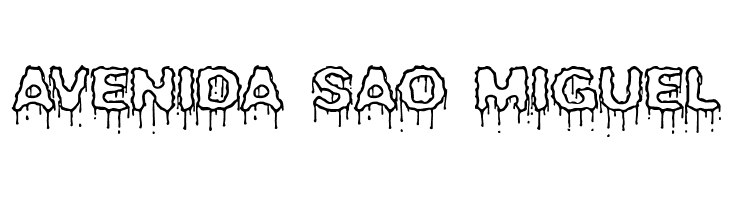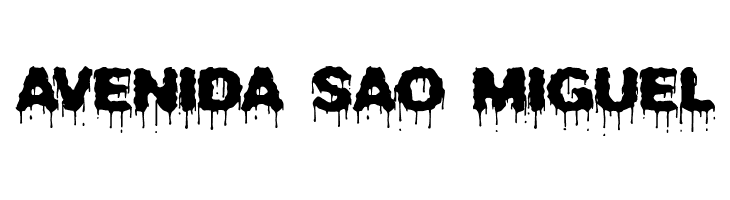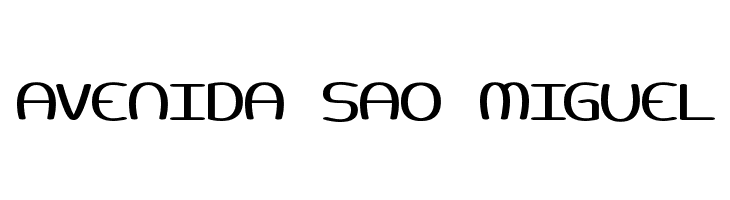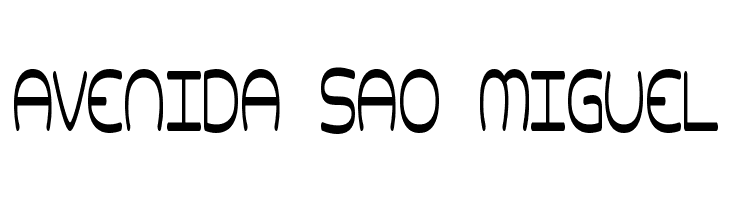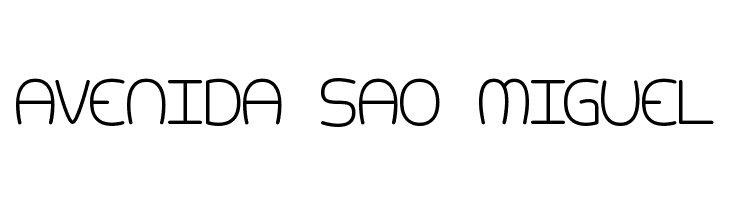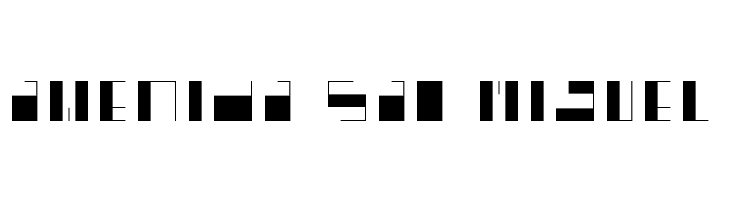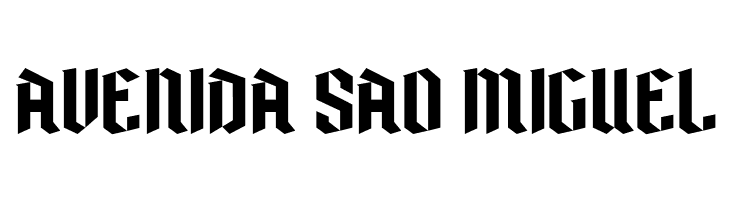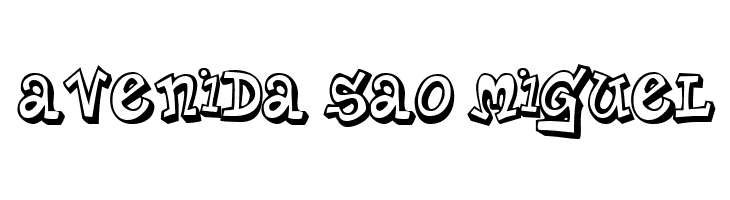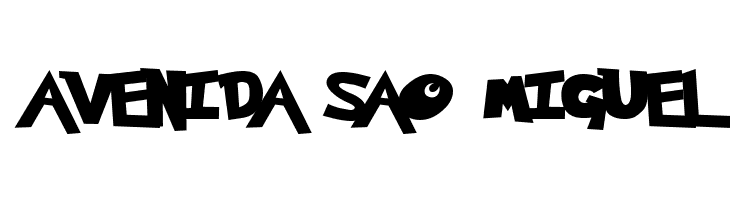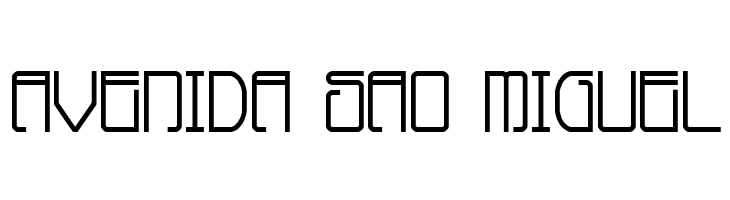
A distressed, grungy font with bold and textured characters.
A playful dingbat font with eclectic hand-drawn illustrations.
A bold, playful font with a cartoonish, three-dimensional style.
A futuristic, geometric font with clean lines and rounded edges.
A bold, dripping font with a dramatic and fluid style.
A decorative cursive font with elegant, flowing strokes and artistic flourishes.
A cursive, handwritten font with elegant, flowing strokes.
A bold, futuristic font with geometric and dynamic letterforms.
A playful and elegant script font with flowing, cursive letterforms.
A lively and flowing script font with elegant, connected characters.
A playful, handwritten font with a smooth, flowing style and decorative elements.
A classic serif font with high contrast and elegant style.
A classic serif font with high contrast and elegant serifs.
A classic serif font with high contrast and elegant, sharp serifs.
A sophisticated serif typeface with high contrast and elegant serifs.
Elegant serif font with high contrast and italic style.
A classic serif font with high contrast and elegant serifs.
An elegant serif typeface with high contrast and a classic italic style.
A playful, bold font with decorative elements and a hand-drawn style.
A graceful and fluid script font with a natural handwritten style.
A modern, rounded font with a futuristic and streamlined design.
A futuristic, tall, and narrow font with rounded edges and a modern aesthetic.
A modern, wide, and rounded font with a futuristic appeal.
A bold, angular font with a gothic, blackletter style.
A bold, playful font with a cartoon-like, energetic style.
A playful, hollow, outlined font with a cartoon-like, comic book style.
A bold, playful font with a whimsical and energetic style.
A modern, geometric font with arrow-like accents and clean lines.
A bold, distressed font with a rugged, vintage texture.
A bold, textured font with a rugged, stone-like appearance.
A bold, playful handwritten font with thick, rounded strokes.
A futuristic, geometric font with bold, block-like shapes and minimalistic style.